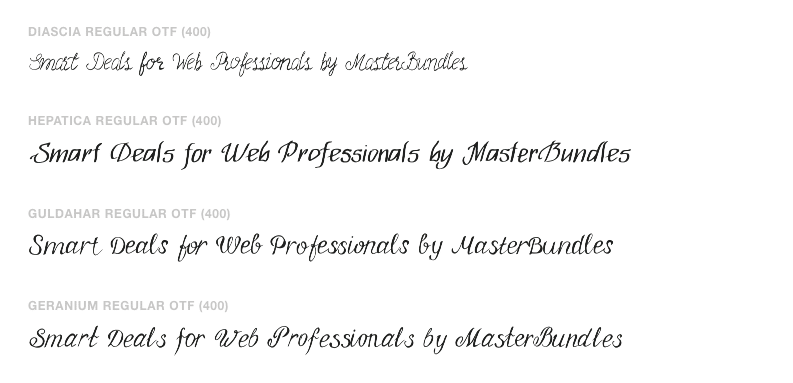
It’s a wonderful font with a unique, detailed and handmade look.
These fonts look amazing in all caps with a wide-set spacing if you want to try a classy look or beautiful on its own in capital and lowercase letters for something completely timeless.
Perfect for gorgeous logos, displays, headers, invitations, save the dates, weddings, titles, web layouts, and branding, etc.